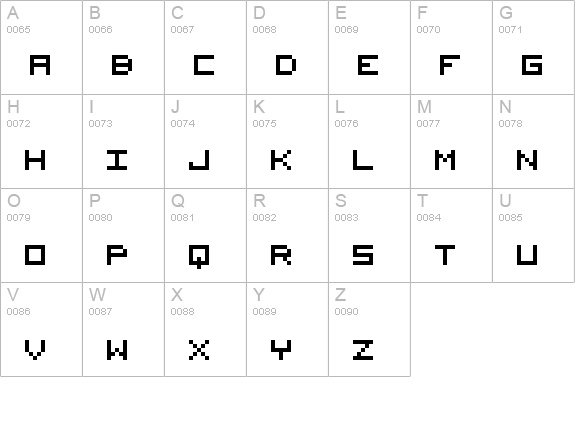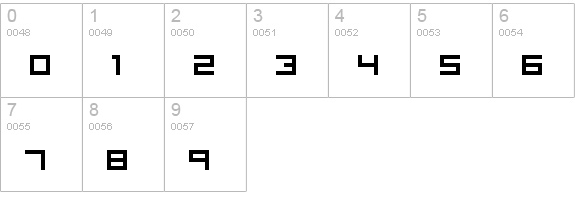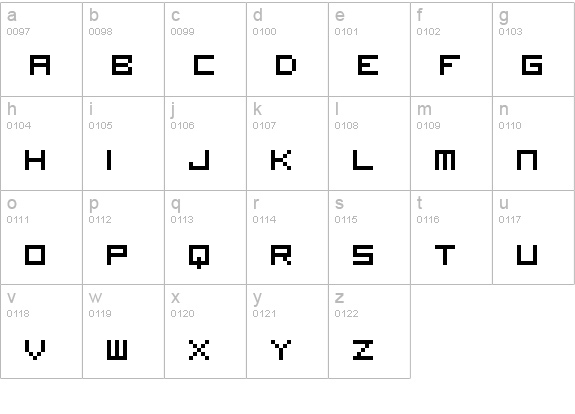
Visitor TT1 -BRK- is a striking and versatile font that combines the perfect balance between modernity and boldness. With its unique style, this font is sure to make a lasting impression on any design project. Its sharp edges and geometric shapes give it a futuristic and cutting-edge feel, making it perfect for technology-related designs or anything that requires a strong visual impact. But what makes Visitor TT1 -BRK- even more appealing is the fact that it is available for free! That's right, this incredible font can be downloaded for free at FontsMarket.com. Whether you're a professional designer looking to add a new font to your collection or a casual user in need of a unique typeface for a personal project, Visitor TT1 -BRK- is at your disposal, without any cost. With its wide range of weights and styles, Visitor TT1 -BRK- offers endless possibilities for creativity. From thin and elegant to thick and powerful, this font has it all. It is perfect for headlines, titles, logos, posters, and any other design element that requires a touch of sophistication and visual impact. The characters of Visitor TT1 -BRK- are meticulously designed, with each letter and symbol crafted with precision and attention to detail. Its legibility and readability make it suitable for both print and digital applications, ensuring that your message comes across clearly and effectively. So, if you're looking for a font that combines modernity, versatility, and affordability, look no further than Visitor TT1 -BRK-. Don't miss out on the opportunity to download it for free at FontsMarket.com and take your designs to the next level.